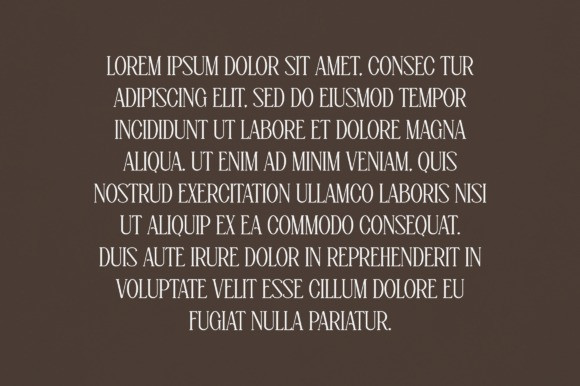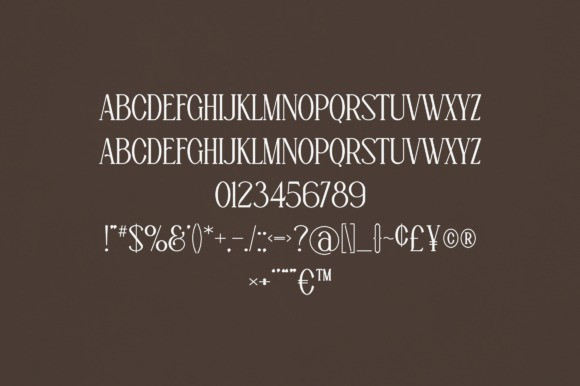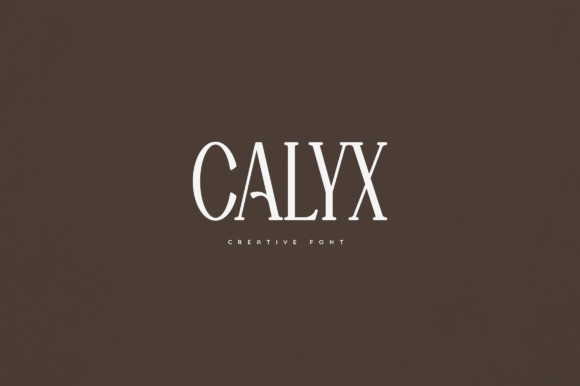
Calyx Font
Calyx Font is an elegant and versatile font that will make your typography truly unique! It will enchant every logo, branding, headline, or plain text!